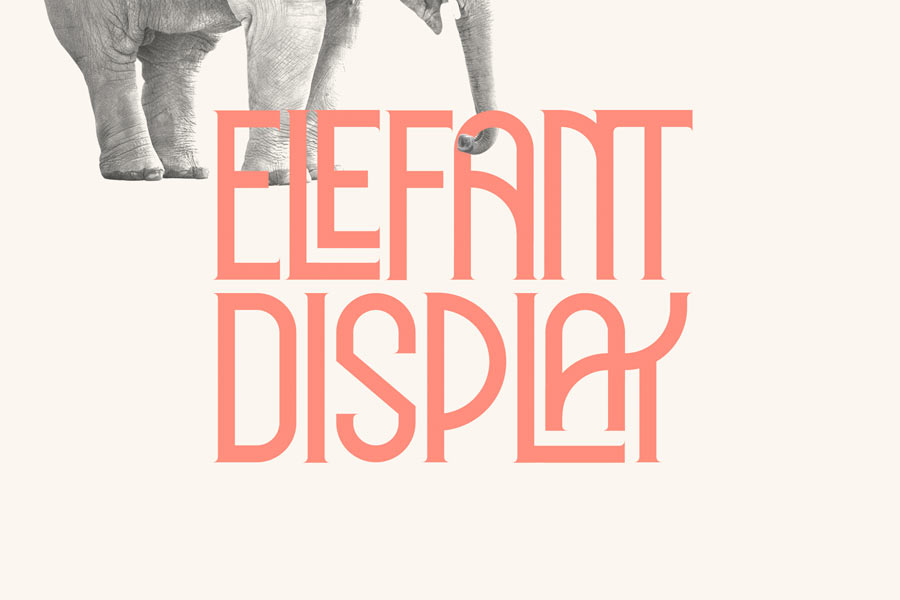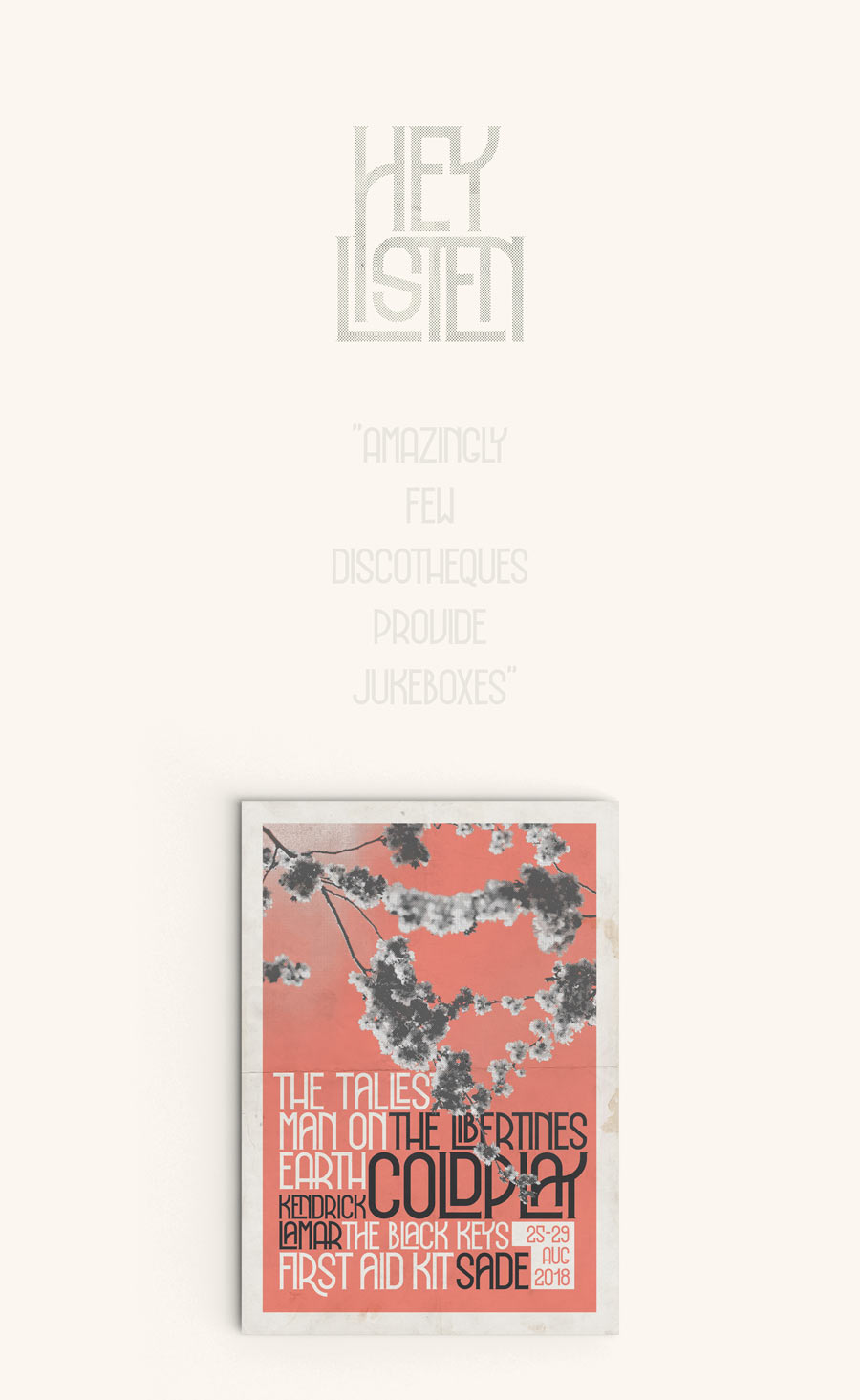
Elephant Display is a tall uppercase free font that has vintage vibes in it. It comes with some basic latin characters and what makes this font stands out is the ligatures. You can produce interesting type treatment and makes the typographic design more pop.
Elephant Display works perfect for any projects that the design direction is to bring out the essence of the old time, or just being retro cool.